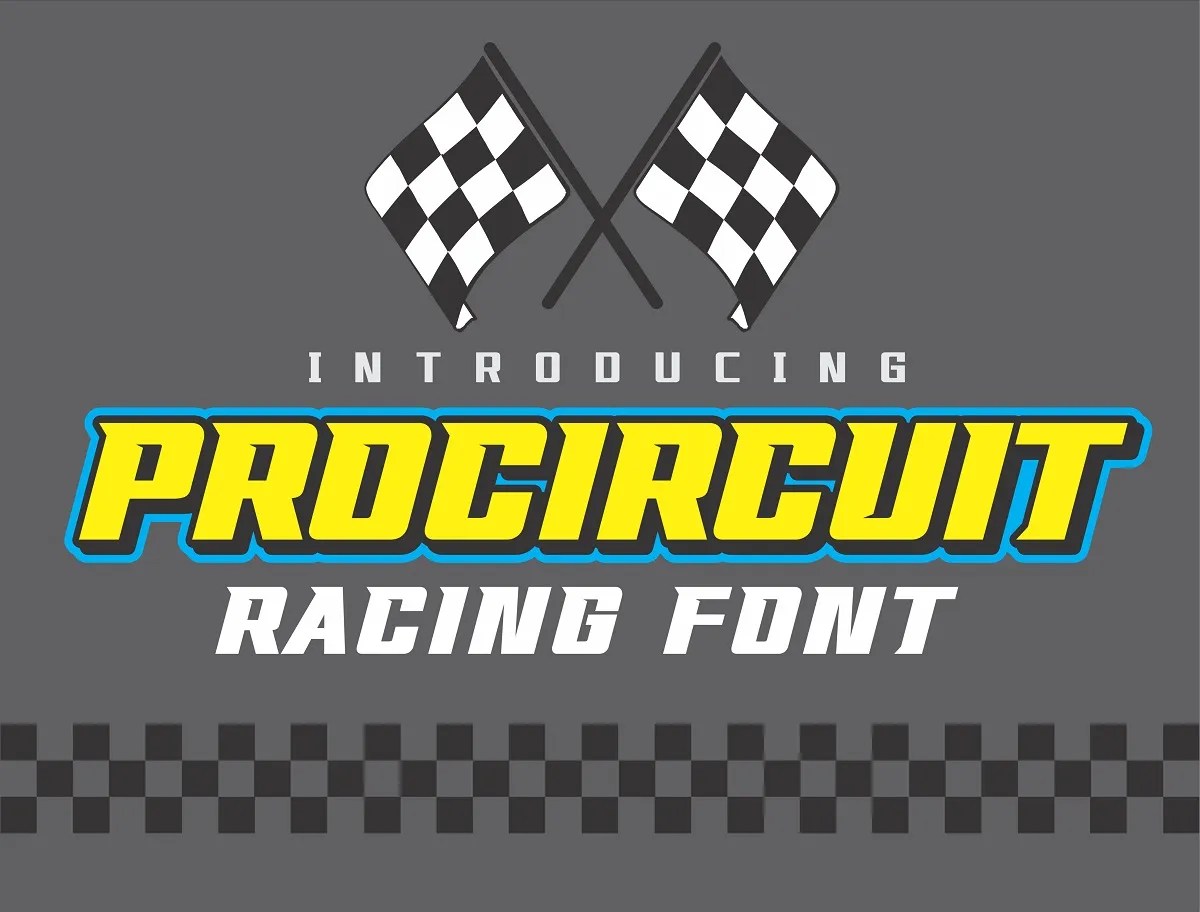
Procircuit Font
Meet Procircuit, the engaging and sporty show font designed to elevate your racing and title designs. With its dynamic edge, Procircuit brings a bold and stylish flair to any project, making it ideal for:
• Logotypes
• Racing Products
• Cover Designs for Racing Games
• Sports Events Posters
• Automotive Magazine Covers
• Branded Products
• Label Designs
• Innovative Projects
Procircuit is crafted to enhance the visual impact of your work, ensuring it stands out with an energetic and modern aesthetic.